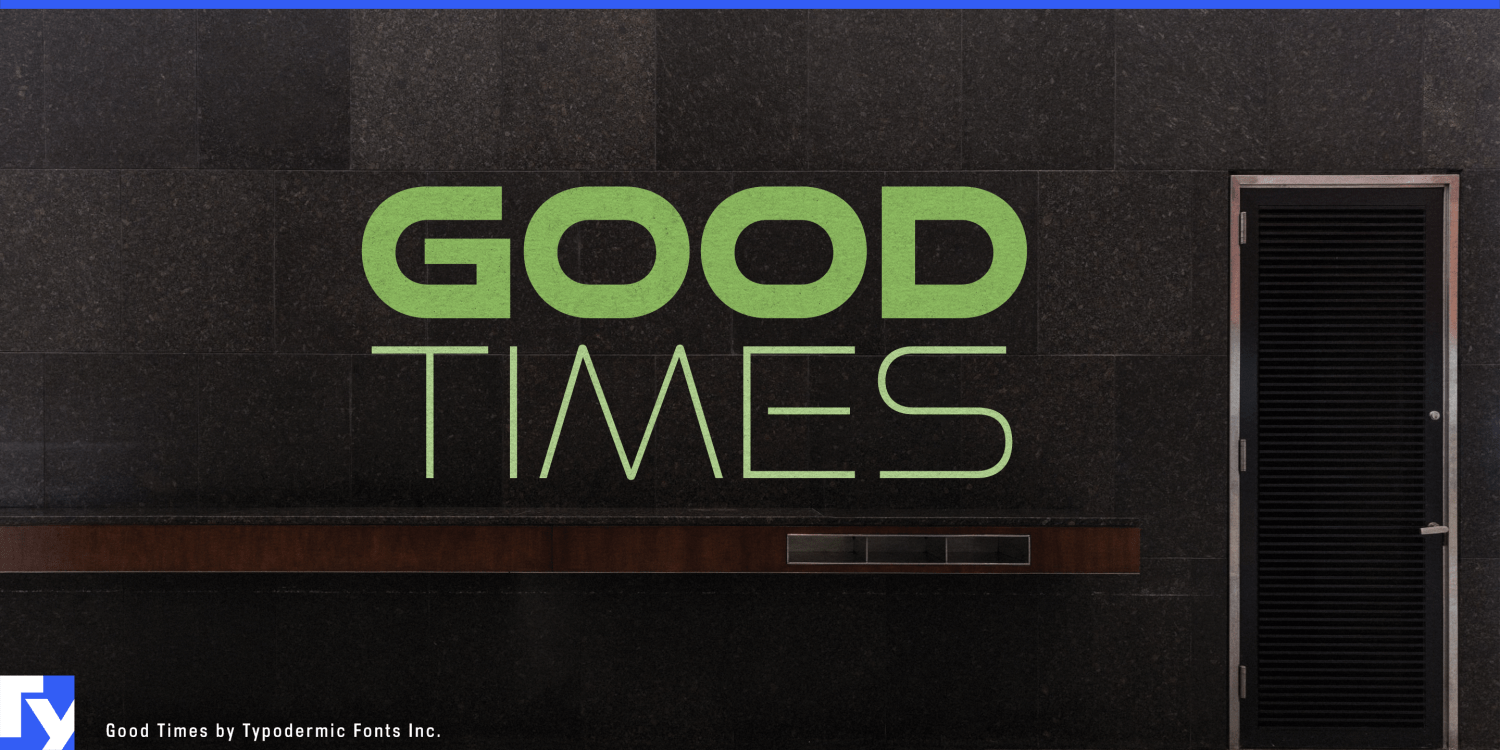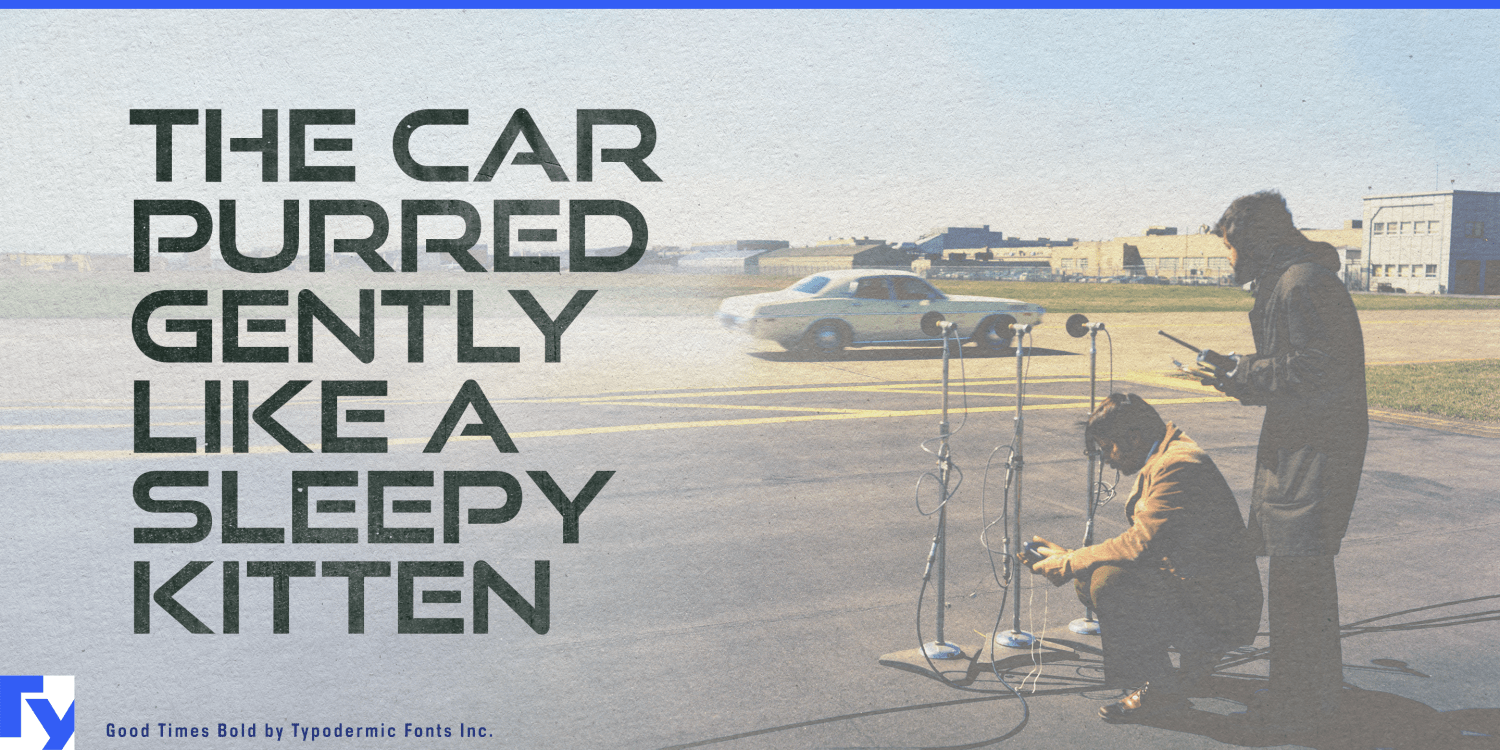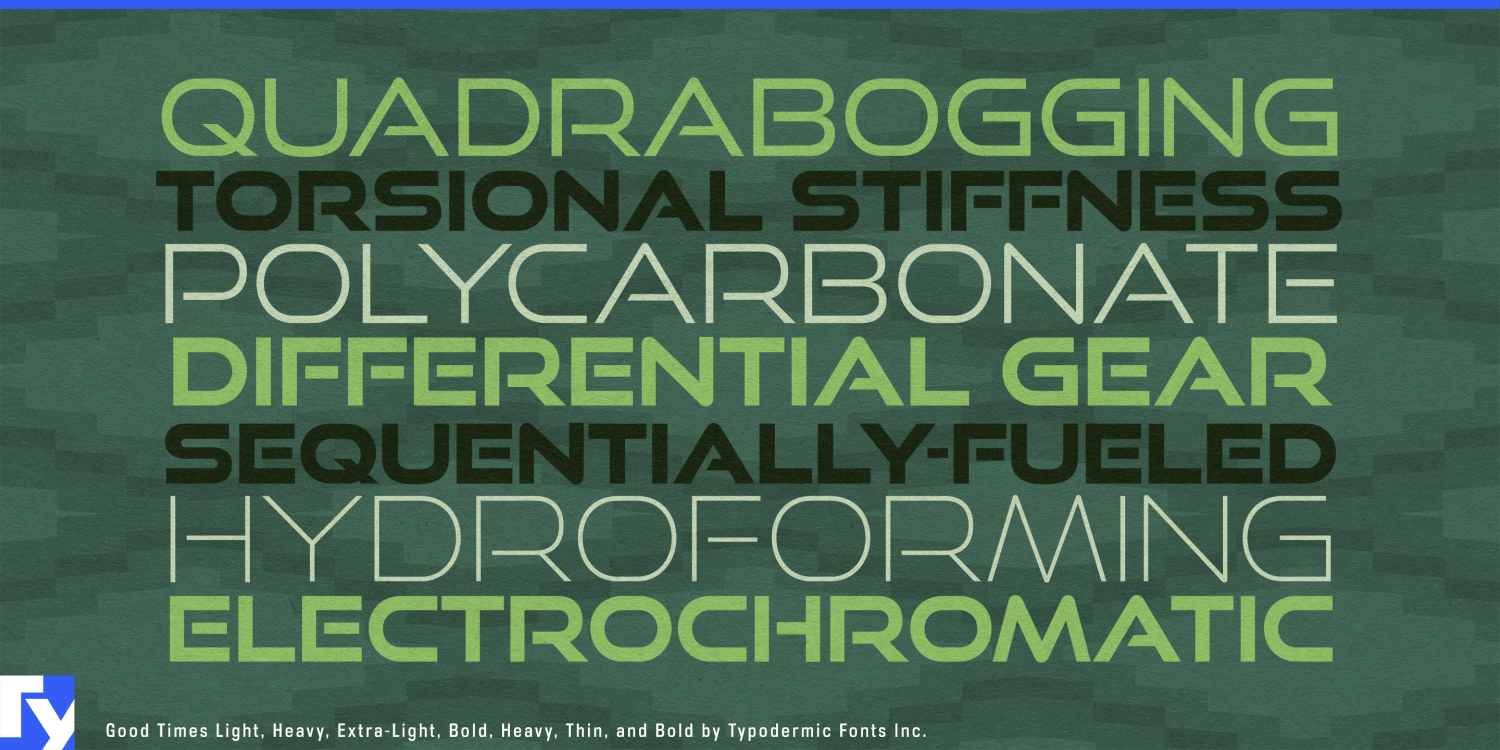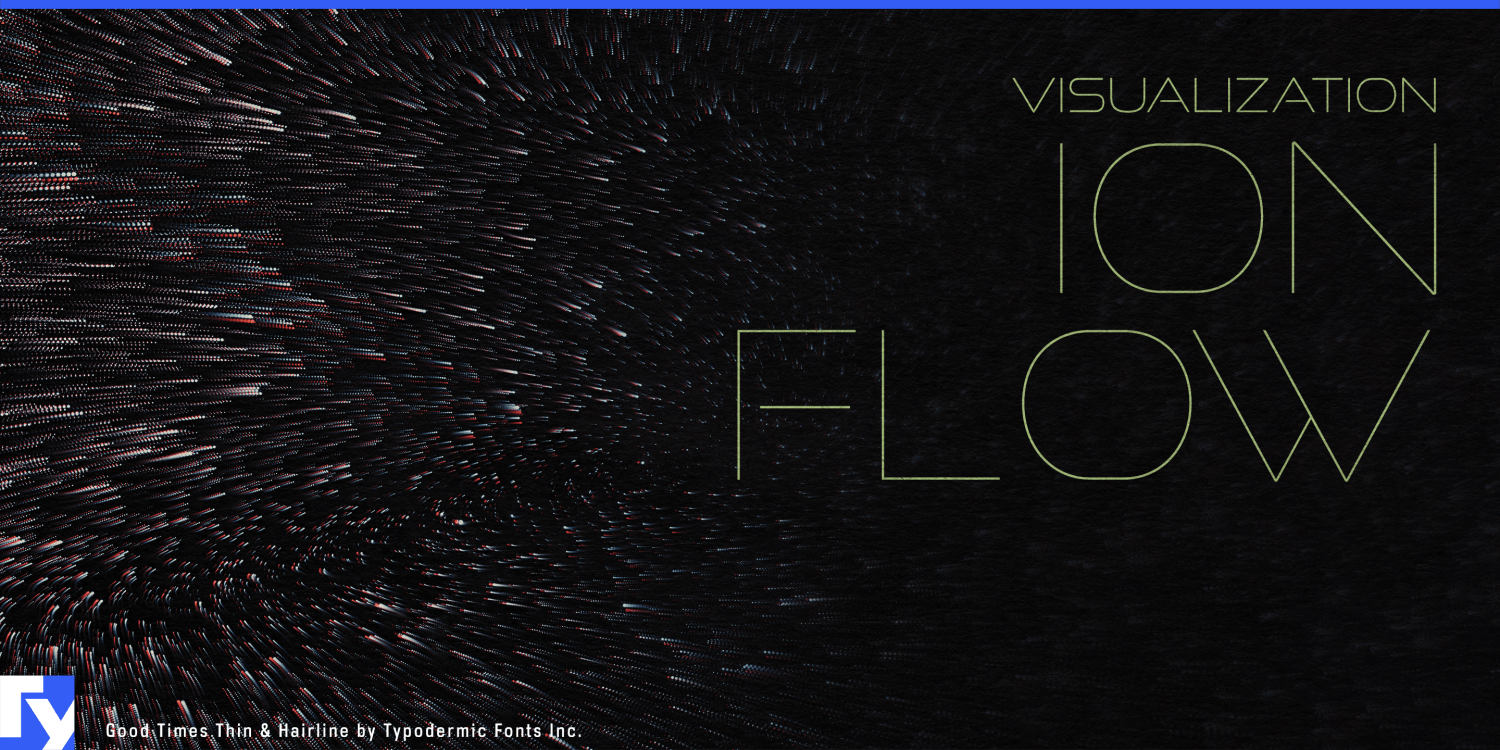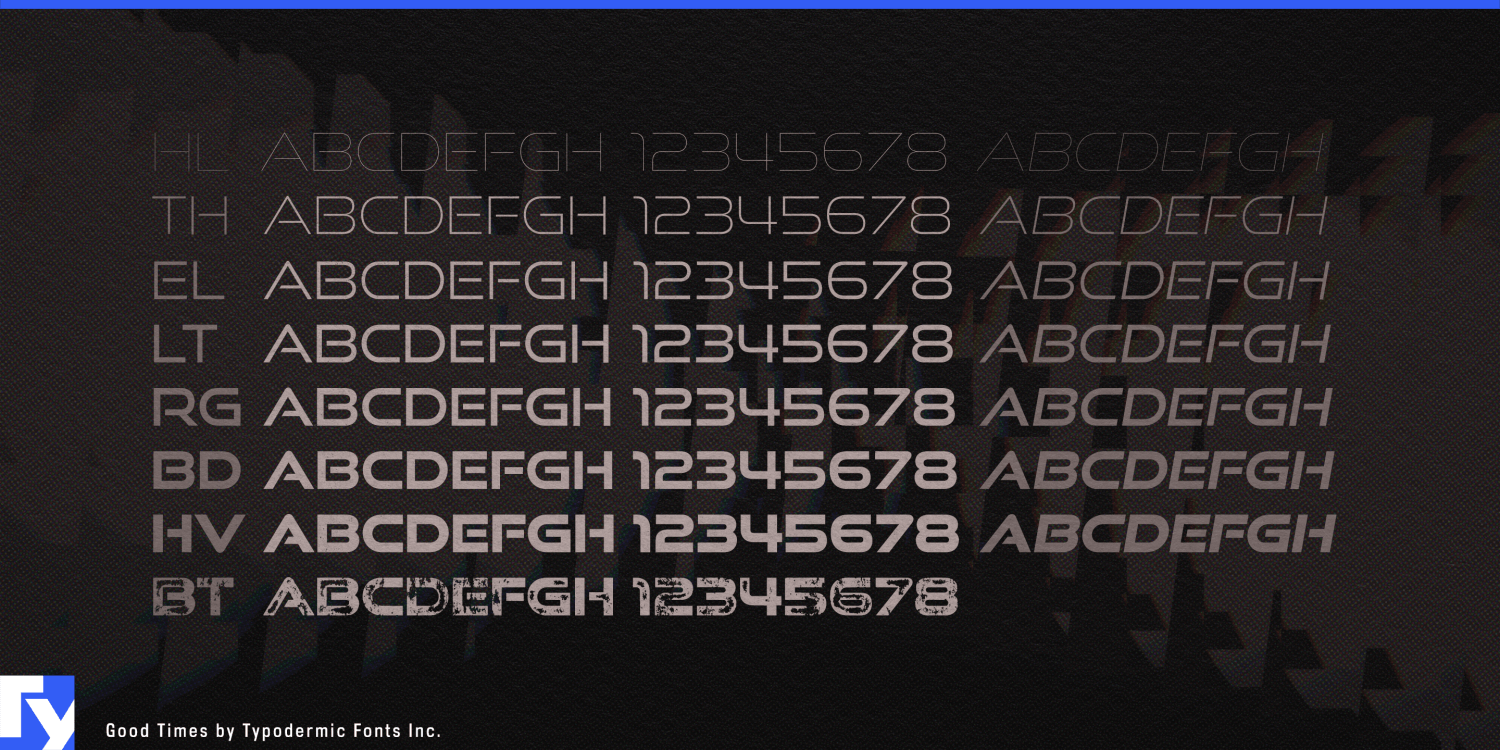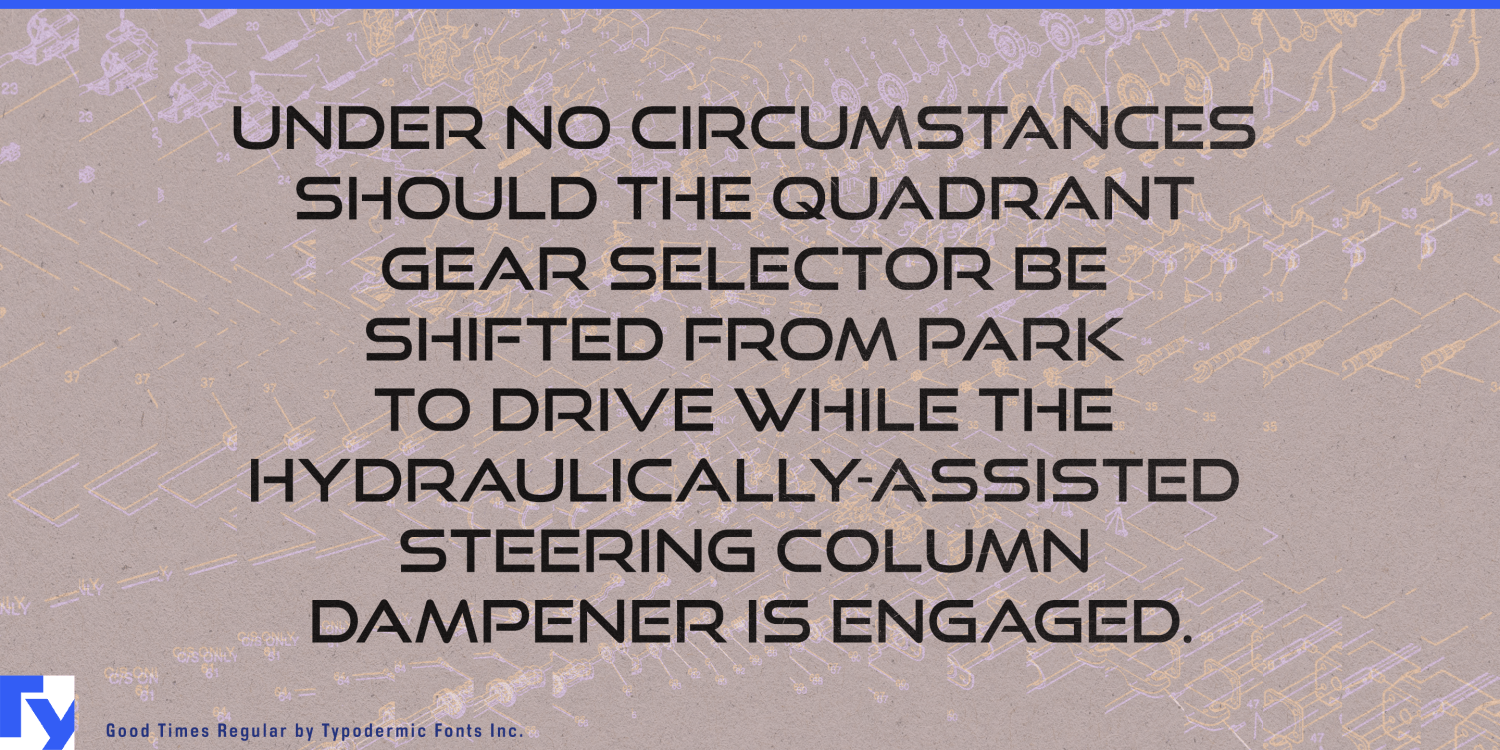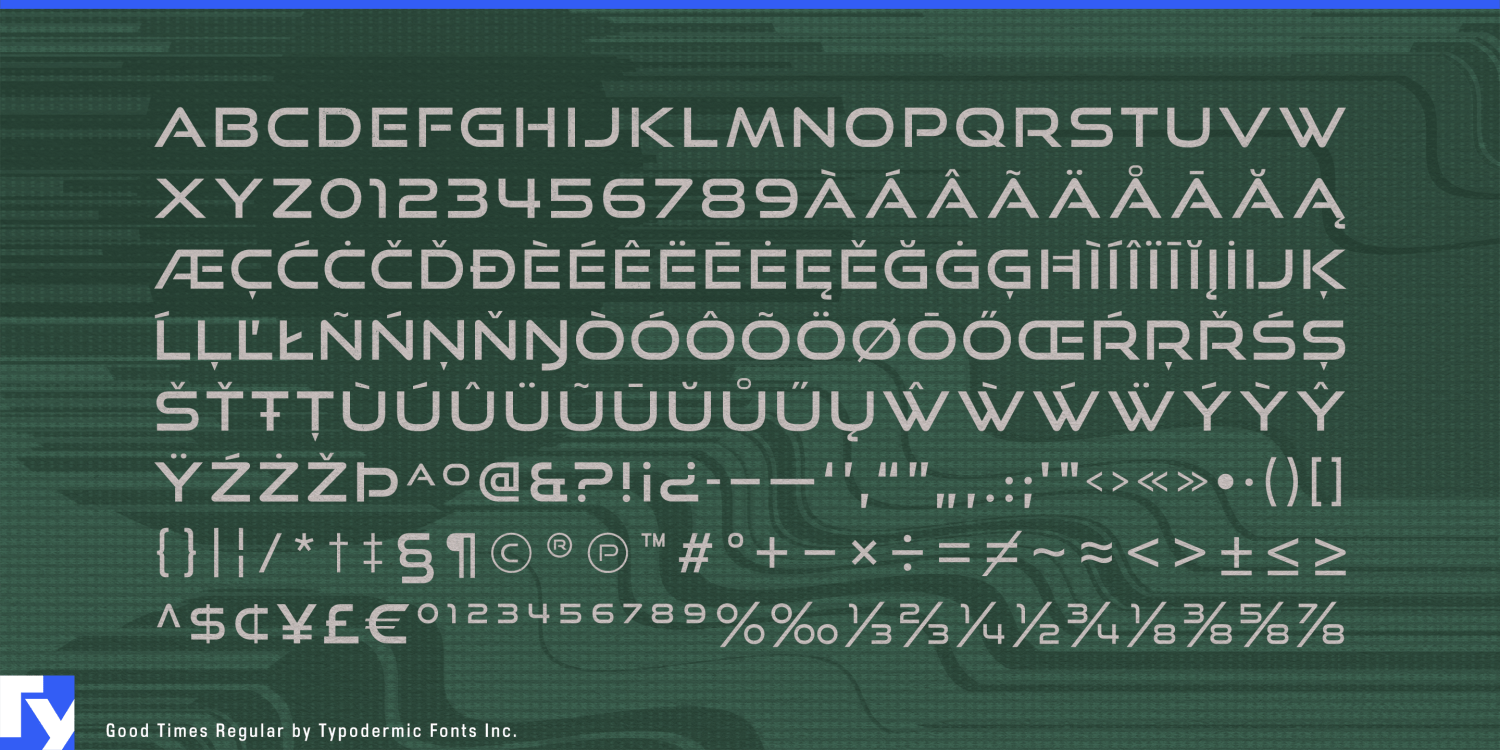
Good Times
Font Family by Typodermic
Gear up for a typographic revolution with Good Times, a font that catapults the spirit of ’90s techno-futurism into the contemporary design landscape. Inspired by the high-tech lettering that adorned Pontiac cars from 1989 to 1994, Good Times isn’t just a typeface—it’s a time machine that whisks you back to an era when the future seemed limitlessly bright and endlessly cool.
Good Times’ wide, capsule-shaped letterforms aren’t merely designed; they’re engineered for maximum impact. Each character is a perfect fusion of form and function, built with straight lines and simple shapes that echo the aesthetic of cutting-edge technology and high-performance machinery. It’s as if each letter has been precision-cut from the hood of a concept car, ready to rev up your designs with unbridled energy. With seven weights at your disposal, including sleek oblique styles, Good Times offers a full spectrum of visual horsepower. From the whisper of its lightest weight to the thunderous presence of its boldest cut, you have the tools to fine-tune your message for maximum impact. It’s like having a typographic pit crew at your fingertips, ready to optimize your design for peak performance.
But Good Times isn’t content to stay in its lane. For those projects that demand an extra edge, Good Times Bad Times cranks up the attitude with a rusty texture variant. Activate its OpenType features, and watch as common letter pairs transform into custom, worn metal masterpieces. It’s not just type; it’s typographic special effects that bring a gritty, lived-in feel to your most audacious designs. Good Times speaks the language of innovation fluently, supporting a vast array of Latin-based European languages. From the tech hubs of Silicon Valley to the design studios of Milan, Good Times is ready to communicate your cutting-edge message across borders and cultures.
Whether you’re crafting the identity for a breakthrough tech startup, designing the interface for a next-gen video game, or creating signage for a futuristic sports arena, Good Times delivers with unparalleled style. It’s more than a font—it’s a statement that declares your design is ahead of the curve, pushing boundaries, and redefining what’s possible. So, fire up your creativity and let Good Times be the fuel that propels your designs into the future.